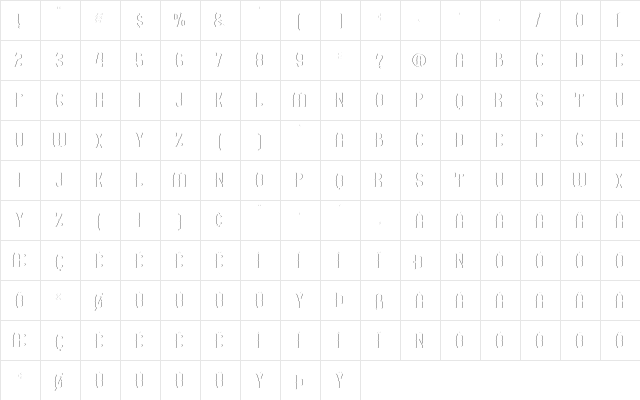
GRAM 02 Regular
| Designer | Muhammad Romzul Khoir |
Design Context for GRAM 02 Typeface
GRAM 02 is a composed and adaptable typeface that performs quietly and consistently across a wide range of design contexts.